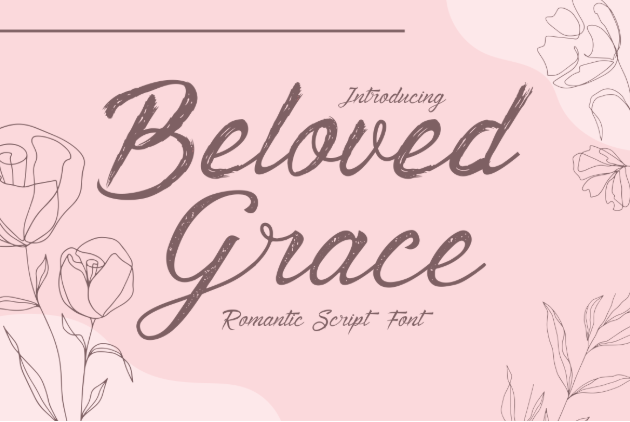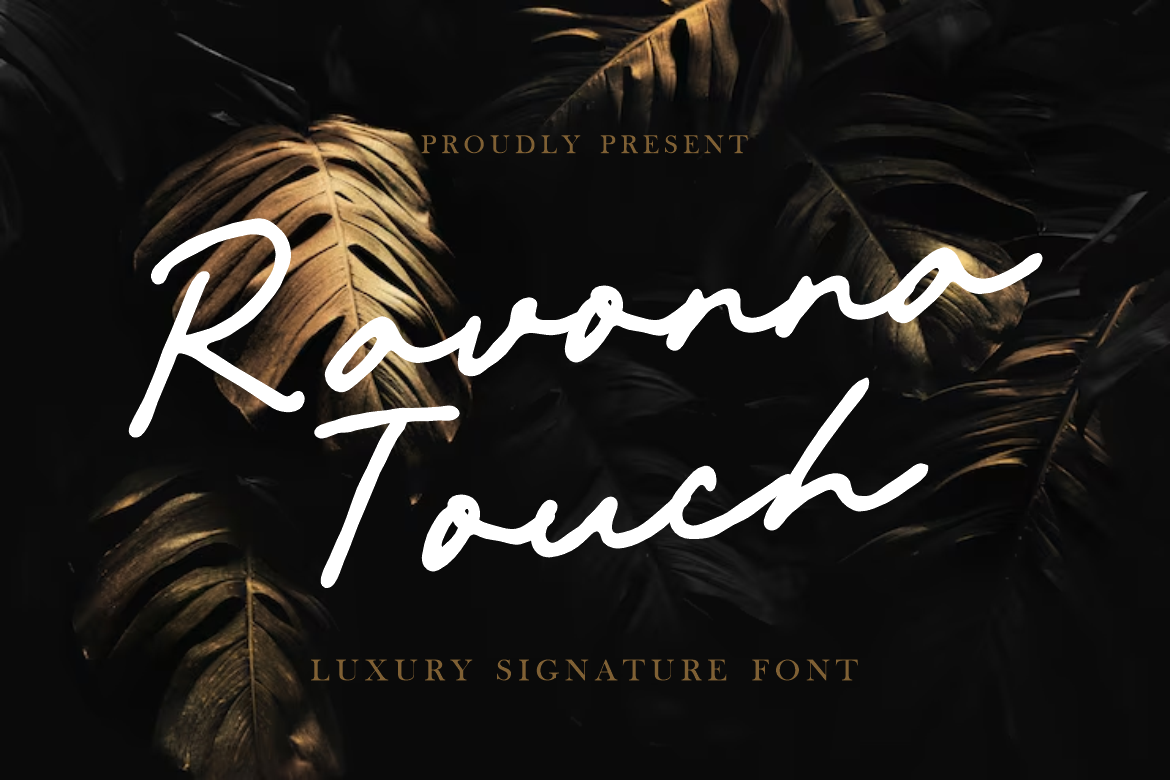
Script Embroidery Fonts: Elegant & Stitch-Friendly Script Picks
Embroidery blends artistry with engineering, especially when working with script styles. Exceptional script embroidery fonts deliver form and function: elegant letterforms with consistent stitch paths. These fonts must avoid thread tangles, tight swashes, or uneven curves. When carefully selected, they ensure crisp letters that look beautiful in fabric without technical headaches. Below we explore five curated styles, each featuring three to five fonts that achieve beauty, clarity, and stitchability from Putracetol Studio.
1. Romantic Yet Structured
This category features fonts that evoke romance but with built-in structure for embroidery stability.
• Final Parade offers graceful script paired with a clean sans serif. The script has predictable curves and defined uppercase forms, making satin stitches smooth. Its swashes are controlled, ideal for monograms. The intricate features may require scaling on tight embroidery areas.
• Enchantia brings fluid lines inspired by love calligraphy, with slightly textured strokes. It’s decorative yet balanced for neat stitching, though its flourish-heavy lowercase may overwhelm smaller placements.
• Beloved Grace embodies a natural handwritten feel with smooth curves and no chaotic loops. Its performance in embroidery is strong with minimal anchors or overlaps, but very tiny sizes may require simplification.
2. Balanced Swash and Elegant Movement
Here, fonts blend swooping swashes with tight control, perfect for elegant embellishment.
• Romantic Embrace features generous sugarcane-style swashes in a controlled baseline setting. It balances drama and stitch guidance, though extreme suspensions may need trimming for layered fabric.
• Ravonna Touch adds a signature vibe while preserving structure. Uppercase consistency and moderate flow make it ideal for brand or elegant names. Long words might require manual spacing adjustments though.
3. Clean Duo with Embroidery-Friendly Design
These fonts prioritize readability and embroidery safety while offering stylistic flair.
• Pretty Satisfy combines a refined script with a bold sans. The script is minimalistic smooth letters with modest flourishes, making it beginner-friendly and consistent in density.
• Final Parade also fits here due to its structured sans-script pairing, giving clean typography and stitching control. Using both parts gives layout flexibility without sacrificing clarity.
• typically fonts like Faldith include paired script with controlled strokes and consistent letters suited for embroidery machine readability, though lighter stroke variations may need adjusting at small scale.
4. Distinctive Script with Controlled Flow
These signature scripts offer personality while maintaining trackable stitch paths.
• Ravonna Touch remains a top pick here for its personal feel with consistent spacing and smooth curves, avoiding messy stitch overlays.
• Enchantia also qualifies, with its flowing but measured ornamental strokes great for romantic messages and clean embroidery outputs
• Romantic Embrace again includes controlled yet expressive connectors and swashes, ideal for single lines or centered text where visual flow is key.
5. Soft and Natural Script for Sleek Projects
For minimalist elegance and subtle romance, these fonts shine in delicate embroidery tasks.
• Beloved Grace is soft, cursive, and understated. Its lightly textured stroke ends prevent harsh transitions, making satin stitching clean, even at smaller scales.
• Enchantia in this group again offers smooth handwriting flow with soft transitions, most effective on medium to large stitch zones.
• Final Parade Script in its minimalist weight can deliver low-density, sleek embroidery ideal for sleek branding or embossed-look monograms.
Clean Embroidery: How Script Embroidery Fonts Improve Final Results
Embroidery success depends on stitch clarity. Poorly drawn scripts with overlapping loops or inconsistent curves result in thread piling or misalignment. The best script embroidery fonts present simple swashes, predictable baselines, and letter spacing that translates smoothly into satin or zigzag stitches. These qualities minimize machine jumps and ensure even stitch lengths. Each featured font supports these constraints with restrained decorative touches, making them reliable for machine embroidery.
Best Practices When Using Script Embroidery Fonts
When applying these fonts in embroidery software, start by sizing them appropriately, usually 2–4 inches for names or monograms. Use underlay stitching for support, especially under extended swashes. Trim or simplify overly dramatic flourishes where thread overlap may occur. Adjust stitch direction to follow letter slant for smooth results. Test each word on scrap fabric to ensure the font reads clearly and stitches consistently.